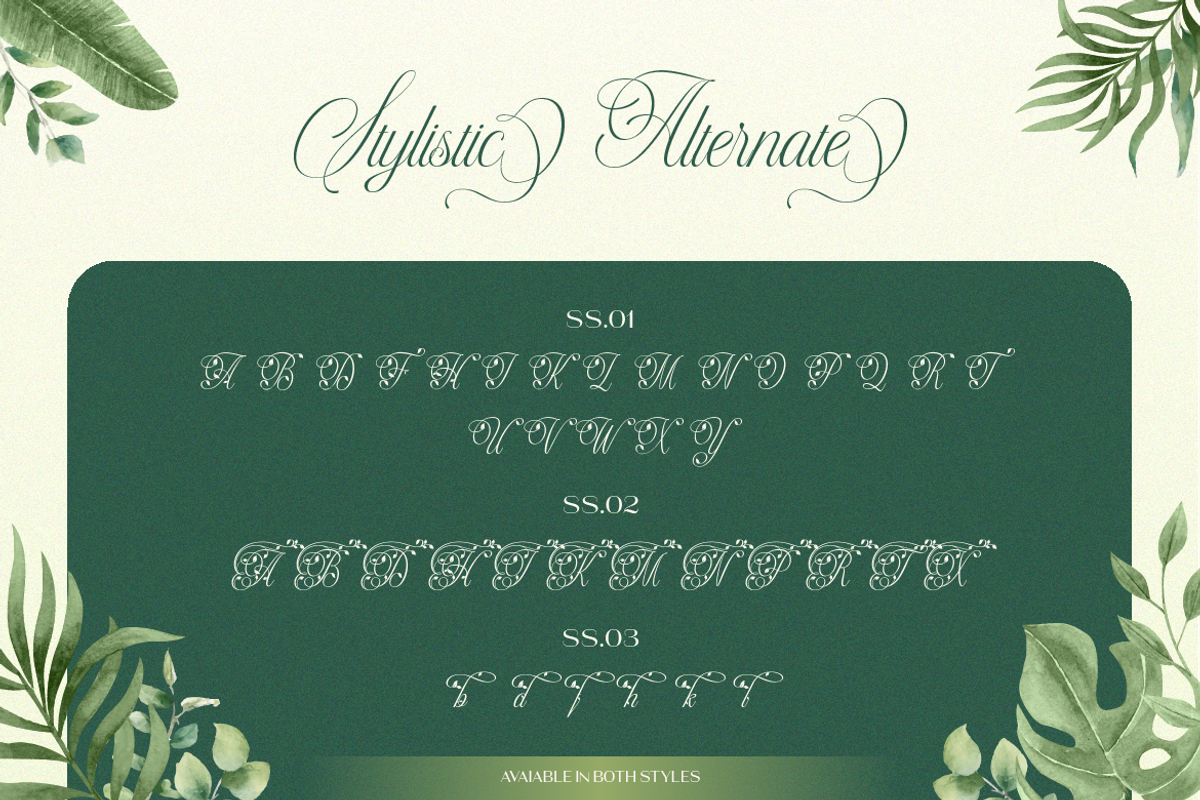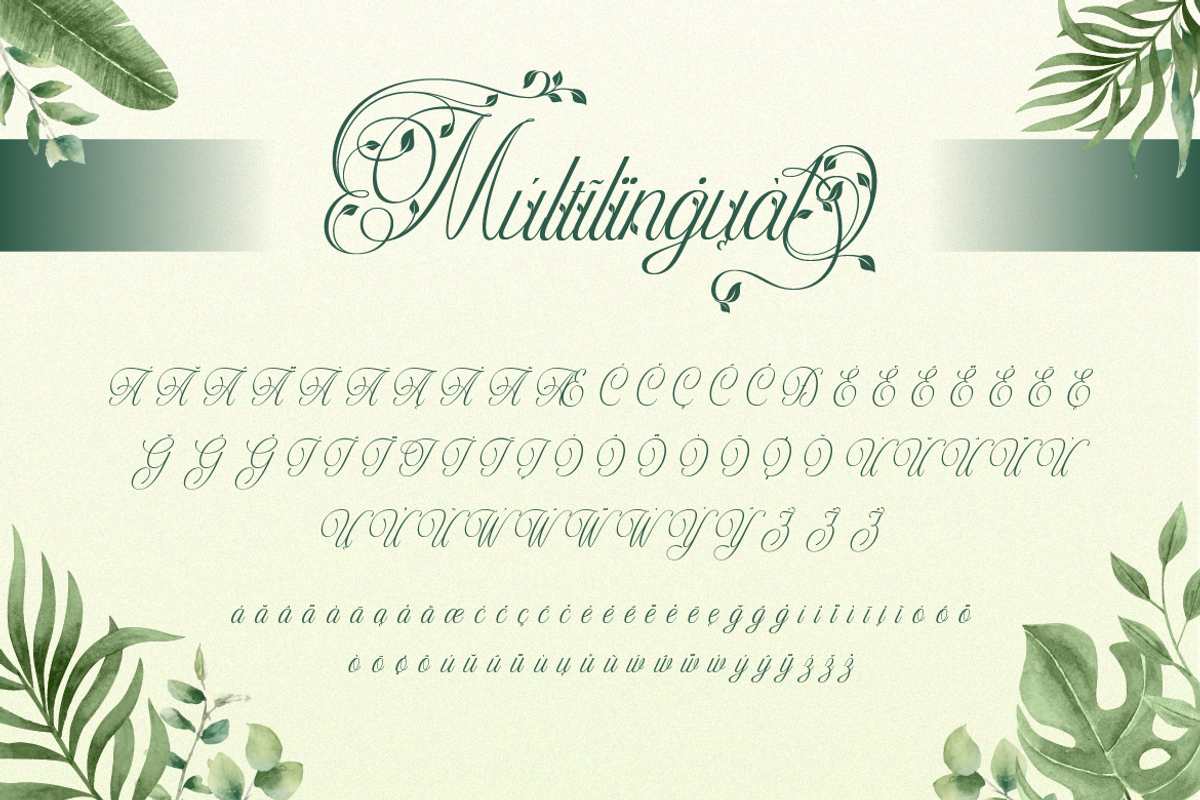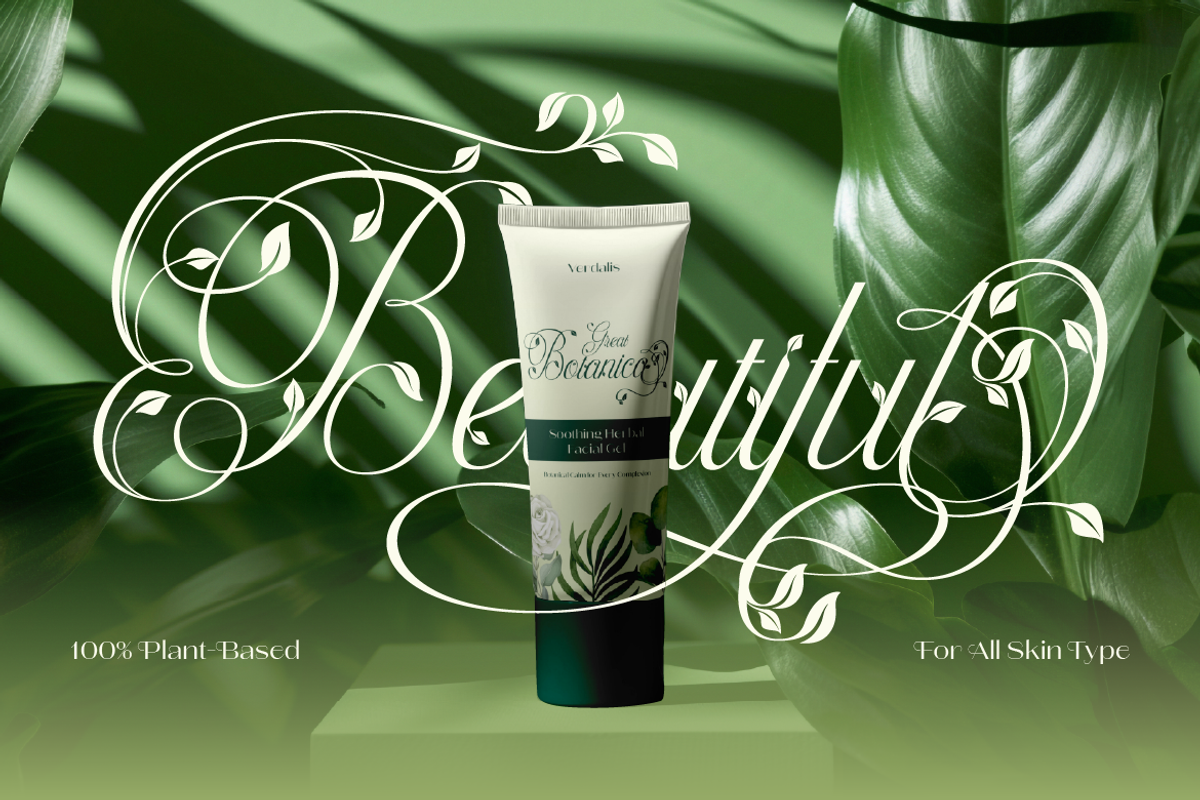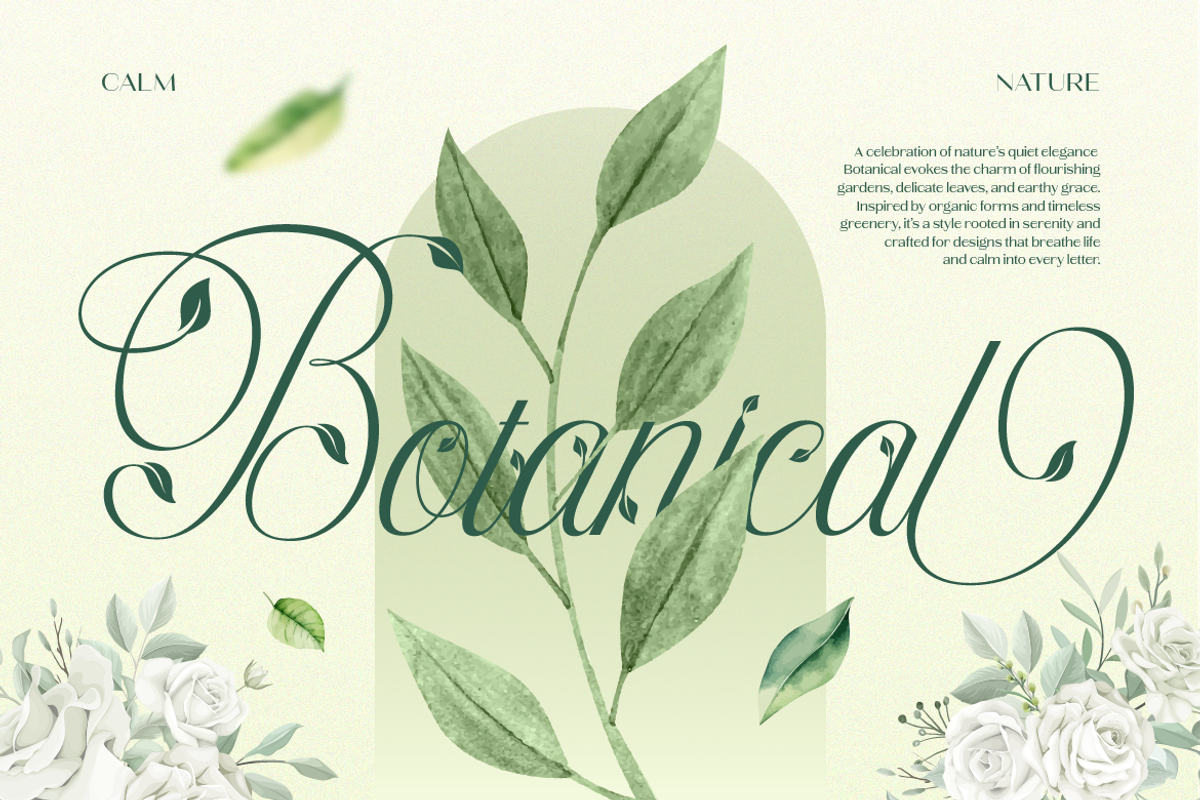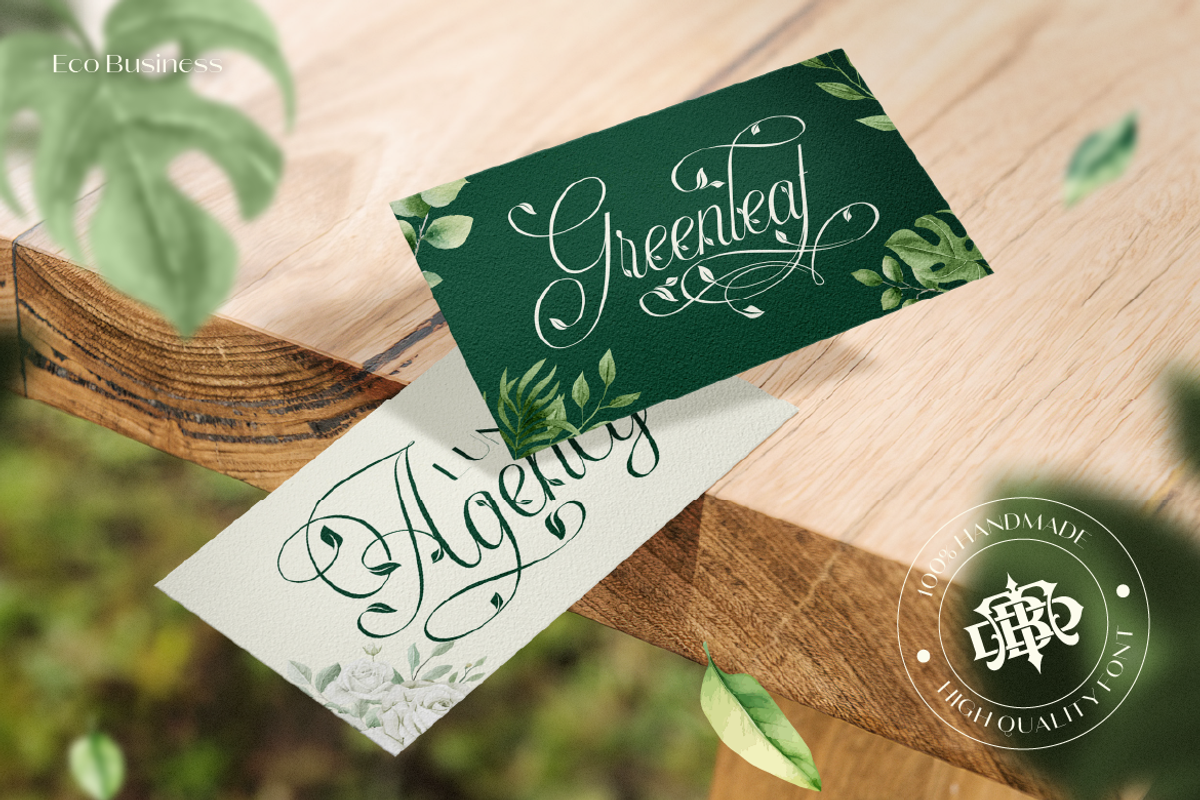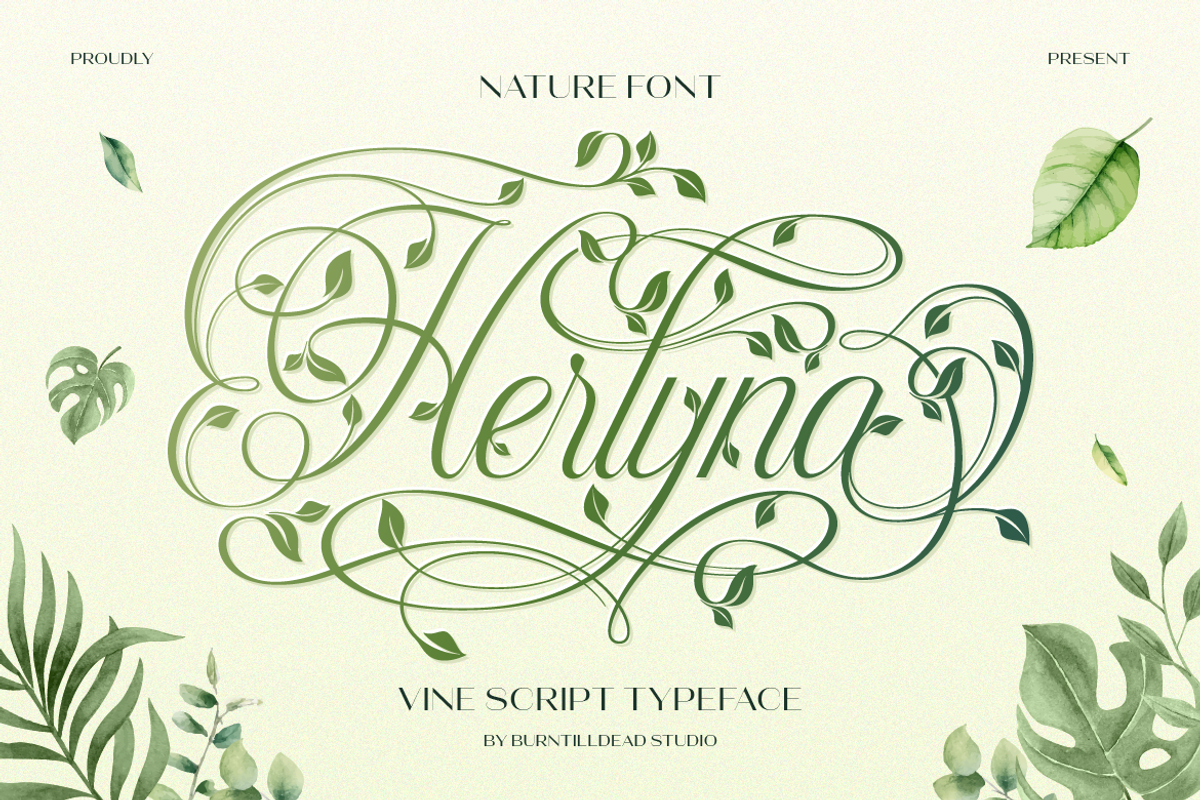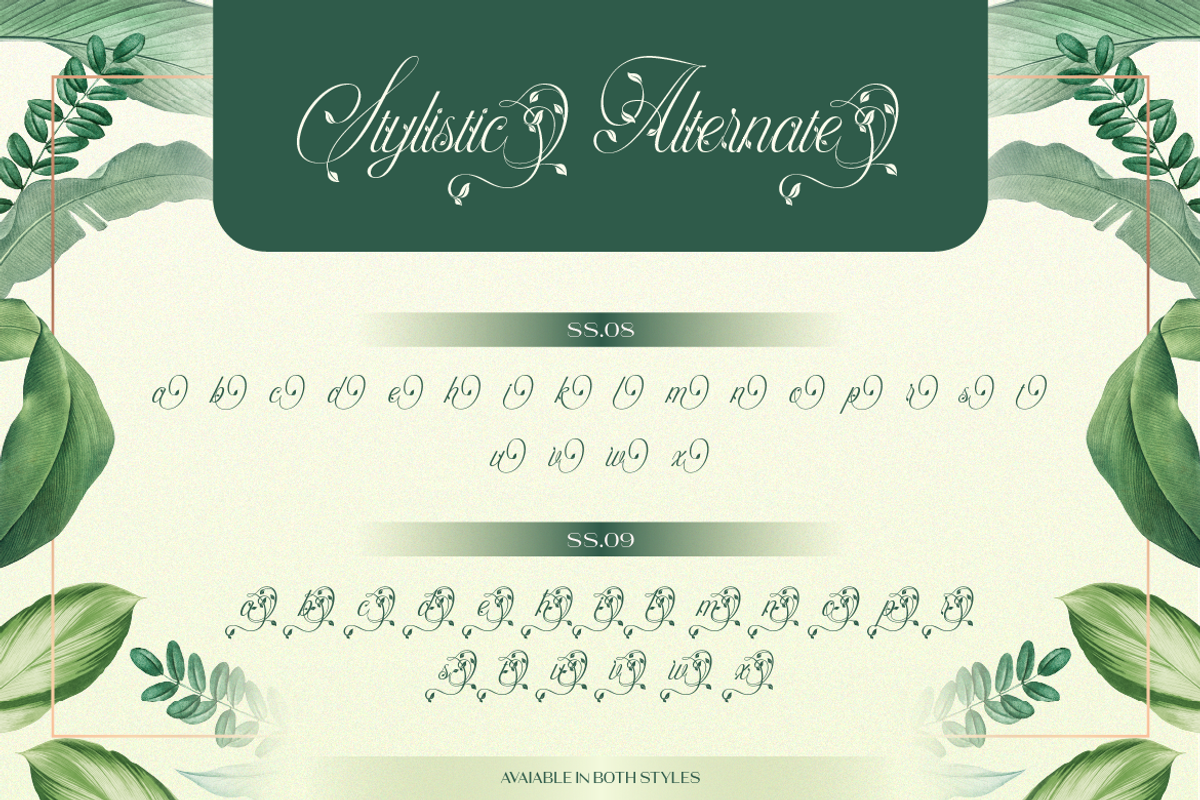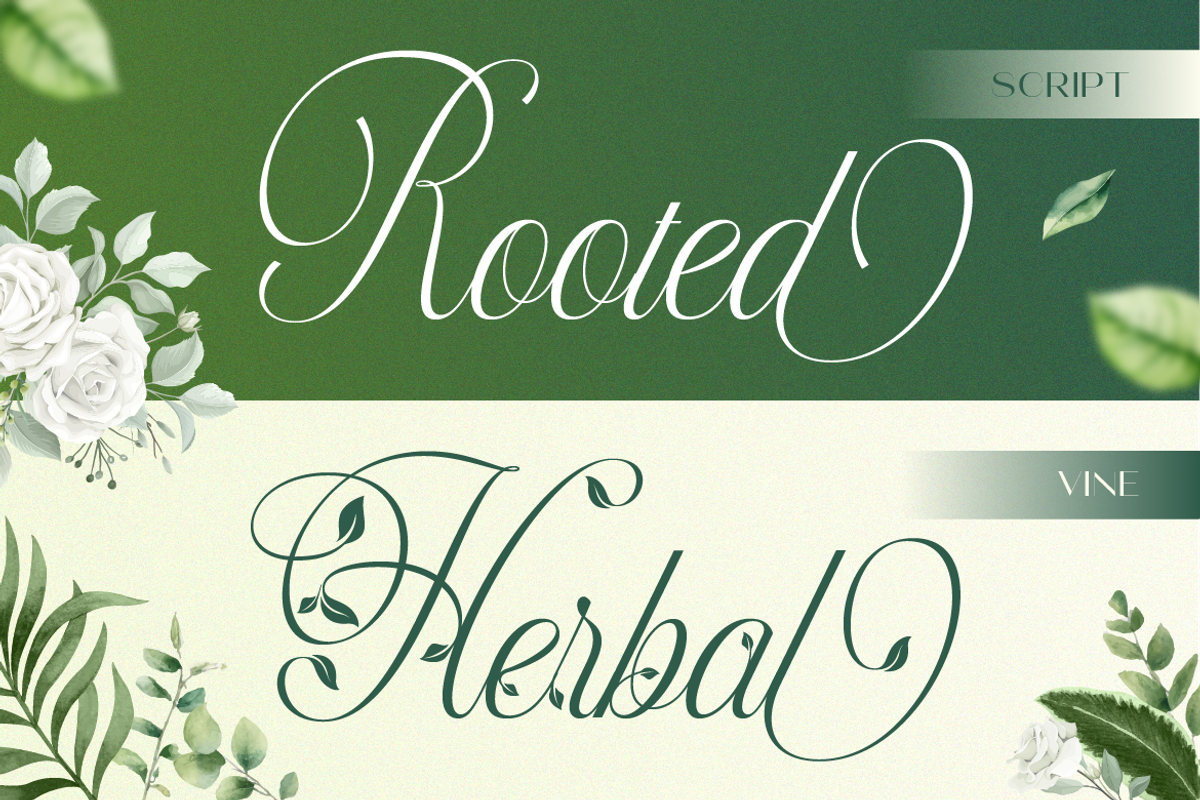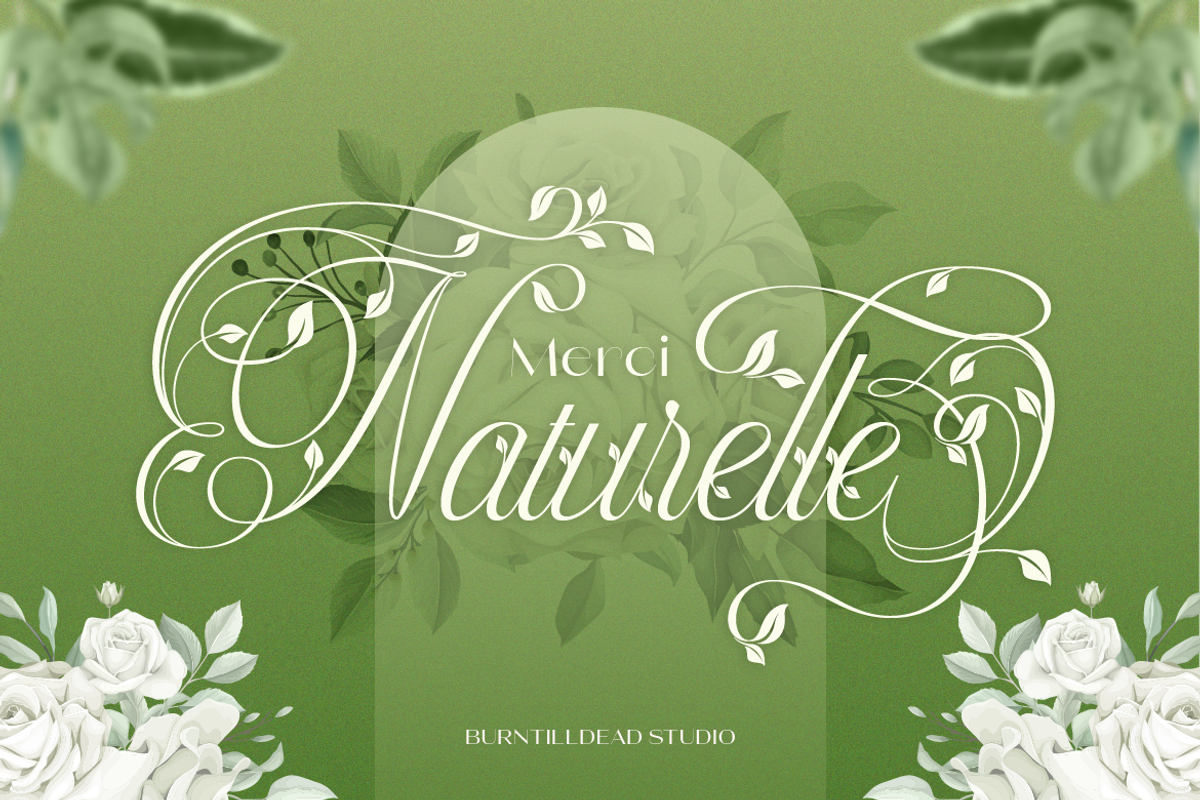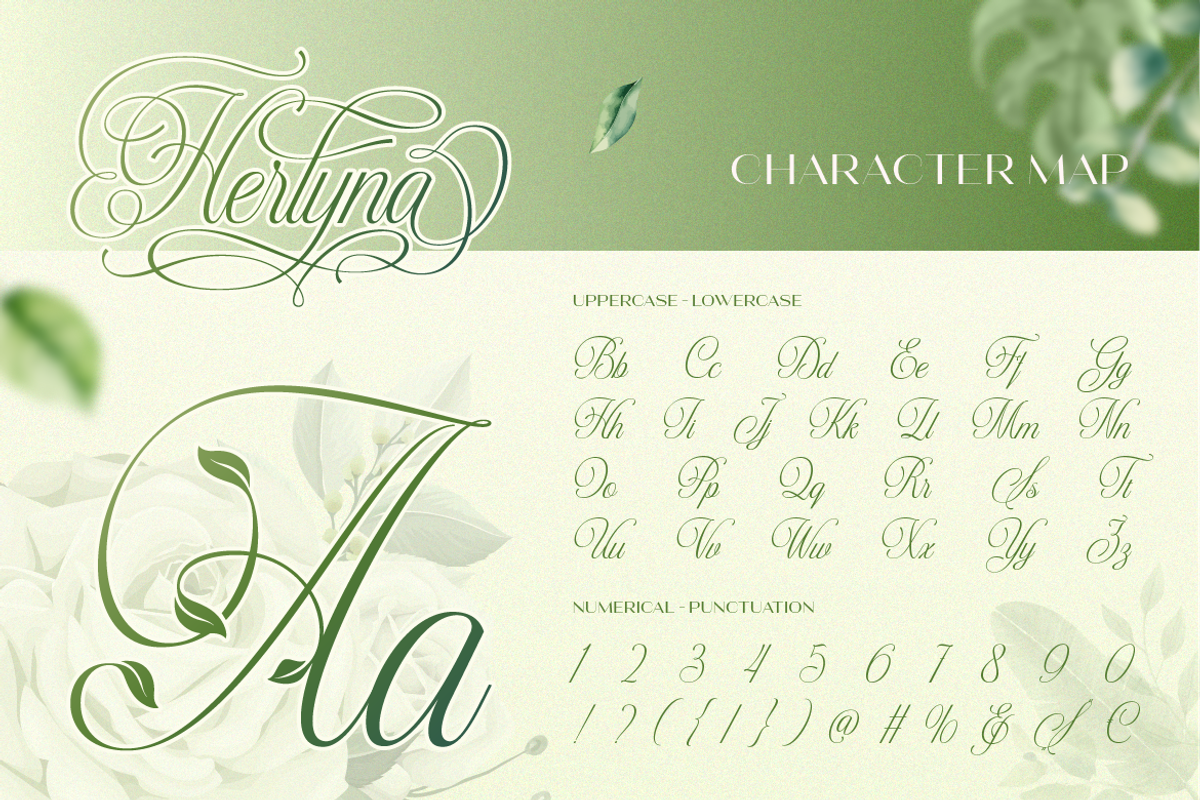
Herlyna
Say hi to Herlyna, a beautiful fusion of classic elegance and soft, flowing leaf ornaments, inspired by the gentle trails of climbing vines. Herlyna comes in two styles: Regular and Vine. Inspired by delicate vines and graceful leaf ornaments, Herlyna brings a touch of fresh air and natural luxury into every letterform. Perfect for eco-branding, wedding stationery, herbal products, and high-end logos, this typeface blends flourishing calligraphy with a modern organic feel. It includes multiple stylistic alternates to help you customize your typography effortlessly.
Number
Alternate
Herlyna Character Map